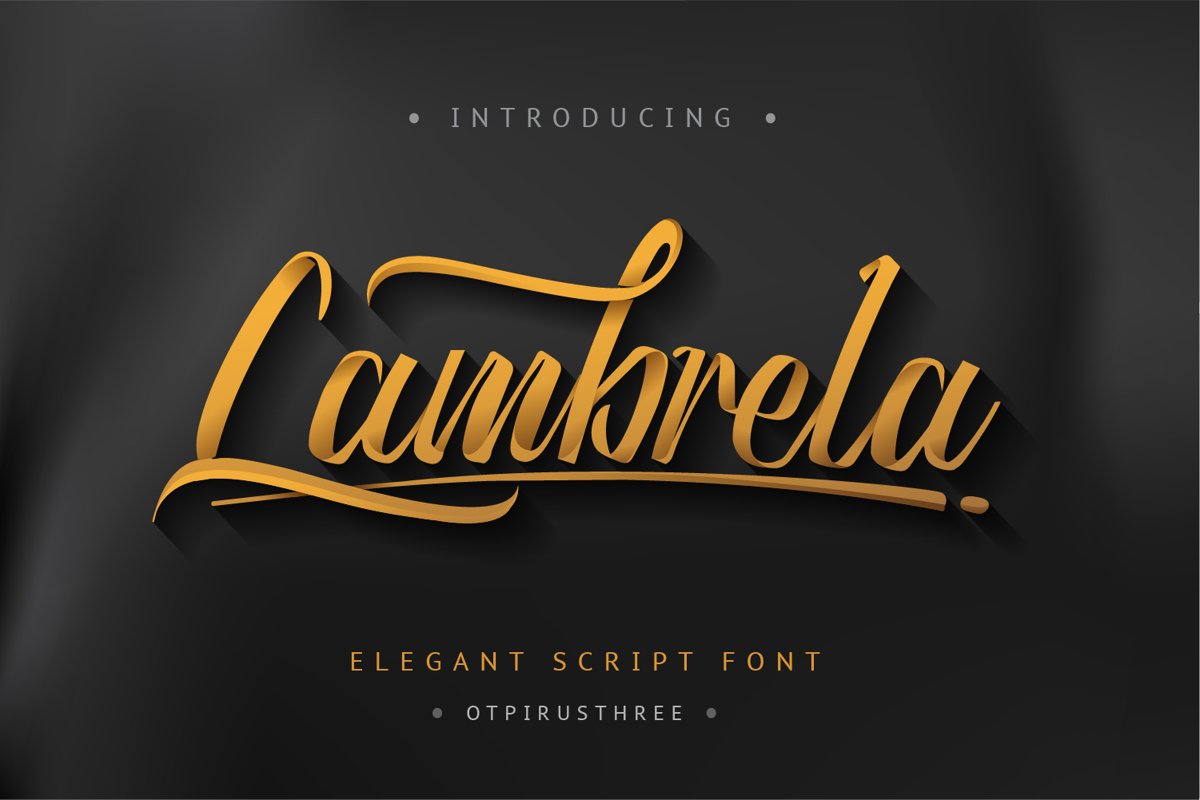
Lambrela
Lambrela-Swashes
Lambrela is a magical handwritten font carefully created with a touch of elegance. This is a beautiful combination of timeless elegance and authentic calligraphy. Use this gorgeous and unique font to bring any DIY project to life!
Lambrela